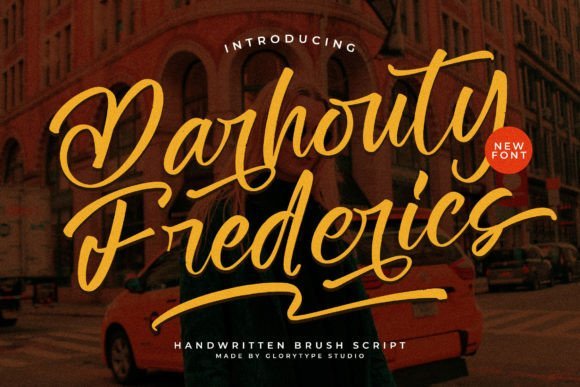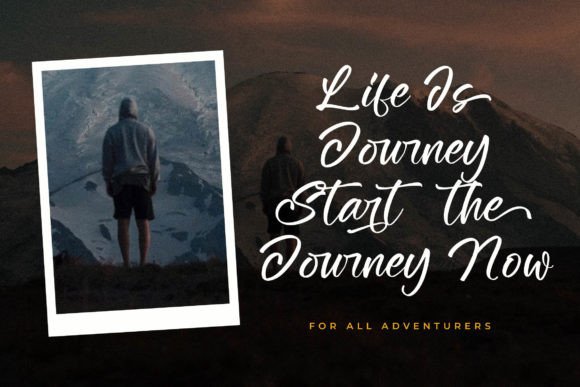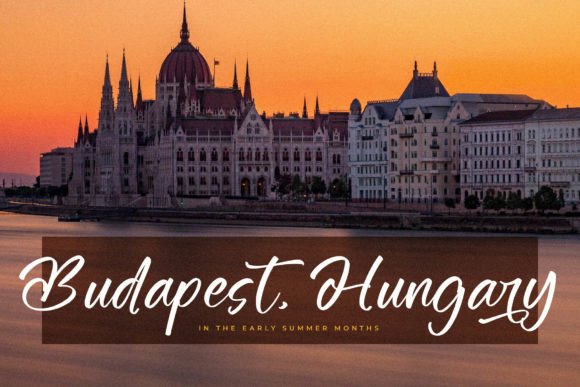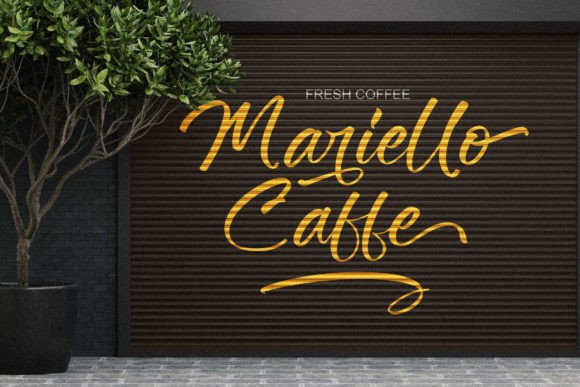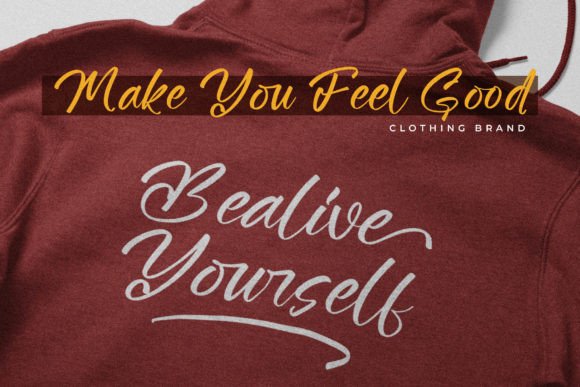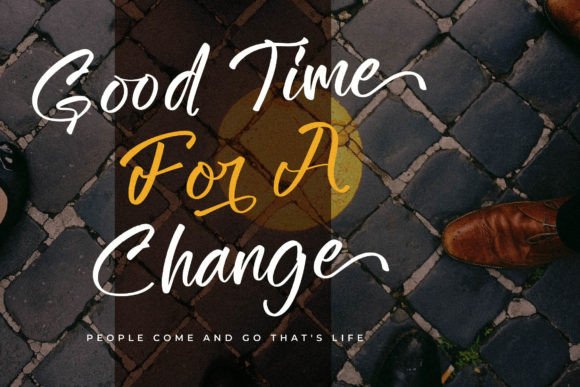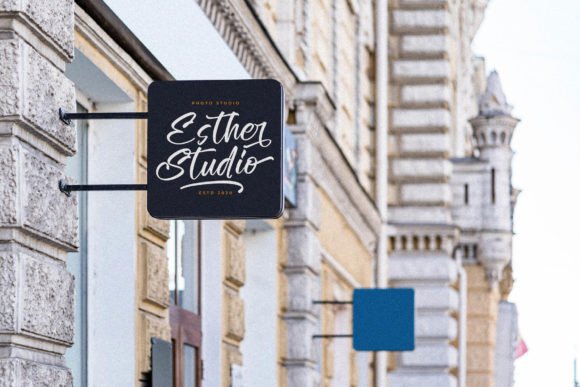
Adding a Touch of Elegance with Darhouty Frederics Font
As designers, we’ve all been there – staring at a blank canvas, searching for the perfect font to bring our creative vision to life. And then, it hits us – the moment when the right typography choice makes all the difference. For those seeking a unique and sophisticated handwritten font, the Darhouty Frederics Font is an excellent choice. With its beautiful, elegant design, it’s perfect for a wide range of projects that require a personalized touch.
This versatile font is ideal for designers looking to add a touch of sophistication to their work. From wedding invitations to logos, the Darhouty Frederics Font is a valuable asset in any designer’s toolkit. Its versatility and elegance make it a must-have for any project that requires a high level of visual appeal.
Darhouty Frederics Font Key Features
- Font Family: Darhouty Frederics Font is a unique, high-end font designed for professional use.
- Size: The font is available in a single weight, making it ideal for use in logos, headings, and body text.
- Unique Characteristics: Features a distinctive, elegant design with intricate details and subtle flourishes, making it perfect for high-end branding and design projects.
Darhouty Frederics Font Review
Overall, I think Darhouty Frederics Font is a beautiful, elegant script font that can add a touch of sophistication to any design. Here are some things that work well:
- ✨ High-quality, smooth lines that make it perfect for invitation and event design.
- ✨ Versatile and can be used for a wide range of designs, from wedding invitations to branding and marketing materials.
- ✨ Beautifully crafted, intricate details that make it stand out from other script fonts.
- ⚠️ Limited language support, which may be a concern for designers who need to work with non-English languages.
- ⚠️ Some characters may not be as legible at small font sizes, which could be an issue for designers who need to use the font for body text.
- ⚠️ Not ideal for use in digital products where text needs to be easily readable at small sizes.
Overall, I think Darhouty Frederics Font is a great choice for designers who need a high-end, elegant script font for print-based designs. Just be aware of its limitations and use it accordingly.